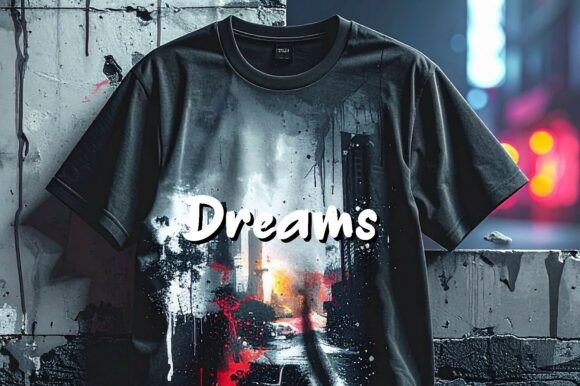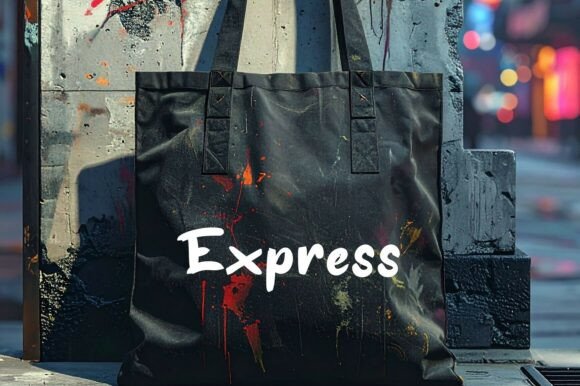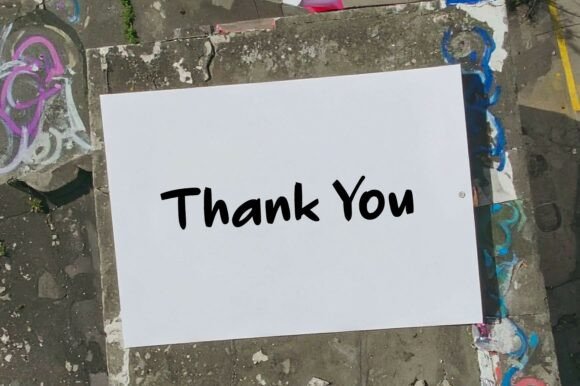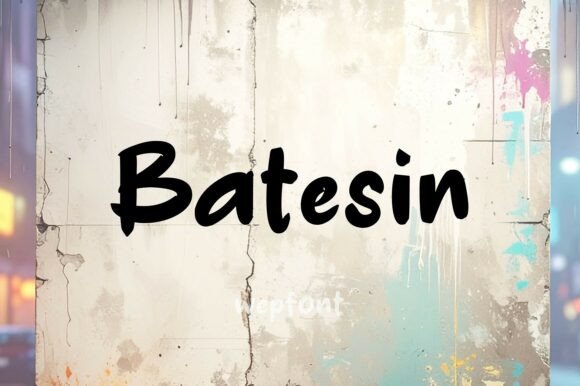
Batesin Font: Unleashing Urban Energy in Typography
In the realm of typography, certain fonts stand out for their unique ability to convey emotion, energy, and style. The Batesin Font is one such typeface that has captured the attention of designers and crafters alike with its dynamic and expressive brush script style. This font is not just a collection of letters; it’s an experience, radiating a vibrant, urban energy that’s hard to ignore. In this article, we’ll dive deep into what makes the Batesin Font exceptional and how it can elevate your design projects.
The Essence of Batesin Font
The Batesin Font is characterized by its raw, unpolished strokes and spontaneous feel, reminiscent of graffiti or street art. This quality gives it a distinctive edge, setting it apart from more conventional typefaces. The varying thickness of the letters and the energetic flow contribute to its dynamic appearance, making it perfect for projects that require a bold statement. The slightly irregular baseline further enhances its authentic, hand-painted aesthetic, providing a sense of movement and life.
What Makes Batesin Font Stand Out?
- Dynamic and Expressive: The brush script style of Batesin Font gives it a unique expressiveness, making each letter feel like it was drawn in a moment of creative burst.
- Urban and Modern: Its bold, confident presence is both modern and edgy, perfect for designs that aim to capture a youthful, rebellious spirit.
- High Readability: Despite its unconventional style, the Batesin Font maintains strong readability, making it versatile for various applications.
- Authentic Aesthetic: The font’s raw and spontaneous feel offers an authentic aesthetic that’s hard to replicate with more polished typefaces.
Ideal Applications for Batesin Font
The Batesin Font’s unique characteristics make it exceptionally well-suited for projects that aim to capture a youthful, rebellious, or artistic spirit. Here are some ideal applications:
- Streetwear Branding: The font’s urban, edgy vibe makes it a perfect match for streetwear brands looking to make a bold statement.
- Music and Arts: For music albums, artist profiles, or art exhibitions, the Batesin Font can add a dynamic, expressive touch.
- Extreme Sports: Brands related to extreme sports can leverage the font’s energetic and youthful feel to appeal to their target audience.
- Bold and Expressive Designs: Any project that seeks to make a bold, expressive, and visually impactful statement with an urban-inspired flair can benefit from the Batesin Font.
Tips for Using Batesin Font Effectively
To maximize the impact of the Batesin Font in your designs, consider the following tips:
- Combine with Solids and Gradients: Pair the Batesin Font with solid colors or gradients to enhance its visibility and make it pop.
- Experiment with Sizes: Play with different font sizes to emphasize certain words or phrases, adding to the dynamic feel of your design.
- Use as a Headline Font: Due to its bold nature, the Batesin Font works best as a headline font, drawing immediate attention.
- Limit Text Blocks: For longer texts, consider using a clearer font for readability. The Batesin Font is best used sparingly for maximum effect.
The Batesin Font is more than just a typeface; it’s a statement. Its dynamic, expressive, and urban energy can transform your designs, giving them a bold and edgy vibe that’s sure to capture attention. Whether you’re working on a streetwear brand, a music project, or any design that requires an urban-inspired flair, the Batesin Font is an excellent choice. Its unique blend of raw strokes, varying thickness, and energetic flow, combined with its readability, makes it a versatile and impactful addition to any creative project.
Embrace the Batesin Font in your next design venture to infuse it with a youthful, rebellious, or artistic spirit. With its help, you’ll not only be making a statement but also ensuring that your message is delivered with style and impact.